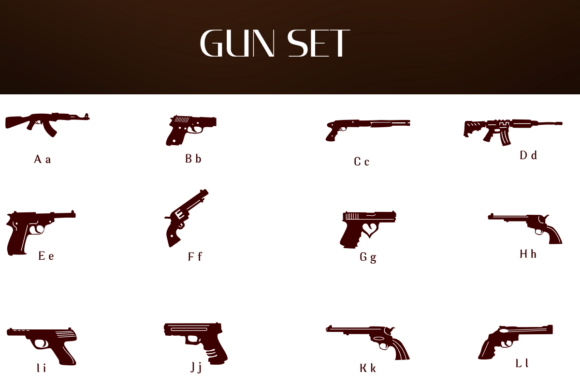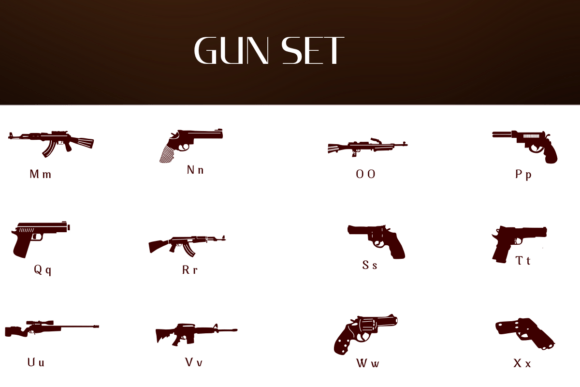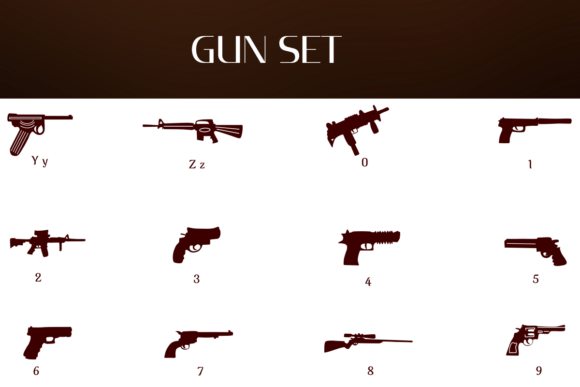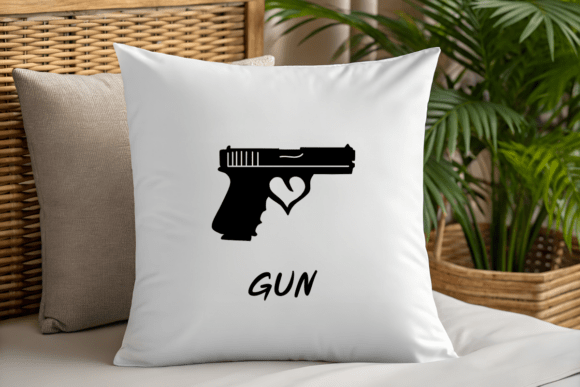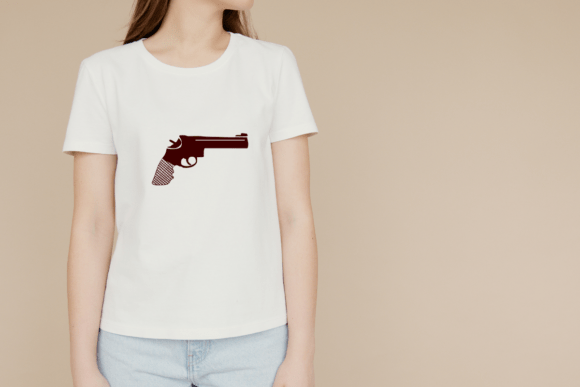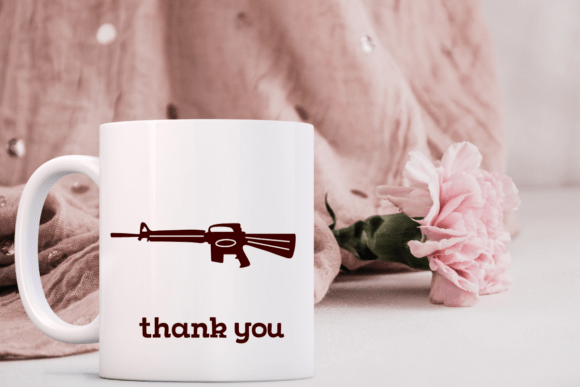
Unlock Creative Potential with Gun Set Font: A Comprehensive Guide
Are you a designer, crafty enthusiast, or simply someone who appreciates the unique blend of art and functionality? Look no further than the Gun Set Dingbats Font, a specialized collection of firearm silhouettes that can elevate your visual projects to new heights. This article will explore the world of Gun Set Font, its features, and the various ways it can be utilized in graphic design, crafting, and other creative pursuits.
What is Gun Set Font?
Gun Set Font is a distinctive dingbats font that comprises a wide array of detailed gun icons, including handguns, rifles, and revolvers. These icons are presented as solid black silhouettes, offering a sleek and modern aesthetic. The font is designed to provide users with quick access to high-quality, scalable vector illustrations that can be easily integrated into various design projects.
Key Features of Gun Set Font
- Wide range of gun icons: The font includes a diverse collection of firearm silhouettes, covering various types of handguns, rifles, and revolvers.
- Scalable vector illustrations: The icons are designed as vector graphics, ensuring they remain crisp and clear at any scale.
- Solid black silhouettes: The font features a sleek, modern aesthetic with solid black silhouettes that can be easily customized.
- Efficient design tool: Gun Set Font provides users with a quick and efficient way to access high-quality illustrations, saving time and effort in the design process.
Applications of Gun Set Font
The Gun Set Font is a versatile design tool that can be applied to various creative projects, including:
- Tactical branding: The font’s firearm silhouettes make it an ideal choice for designing logos, emblems, or other visual elements for tactical gear, outdoor equipment, or firearms-related businesses.
- Historical documentation graphics: Gun Set Font can be used to create historical graphics, such as illustrations for museum exhibits, historical reenactments, or educational materials.
- Movie posters and themed apparel: The font’s unique illustrations can add a touch of authenticity to movie posters, t-shirts, or other themed apparel related to firearms, action movies, or outdoor adventures.
Tips for Using Gun Set Font
To get the most out of Gun Set Font, keep the following tips in mind:
- Experiment with different sizes and colors: Take advantage of the font’s scalable vector illustrations by experimenting with different sizes and colors to find the perfect fit for your design.
- Combine with other design elements: Gun Set Font can be paired with other design elements, such as textures, patterns, or typography, to create visually striking compositions.
Gun Set Font is a powerful design tool that offers a unique collection of firearm silhouettes, perfect for designers, crafters, and creatives looking to add a touch of authenticity to their projects. With its wide range of gun icons, scalable vector illustrations, and efficient design capabilities, Gun Set Font is an excellent choice for various applications, from tactical branding to historical documentation graphics. By following the tips outlined in this article, you can unlock the full creative potential of Gun Set Font and take your designs to the next level.